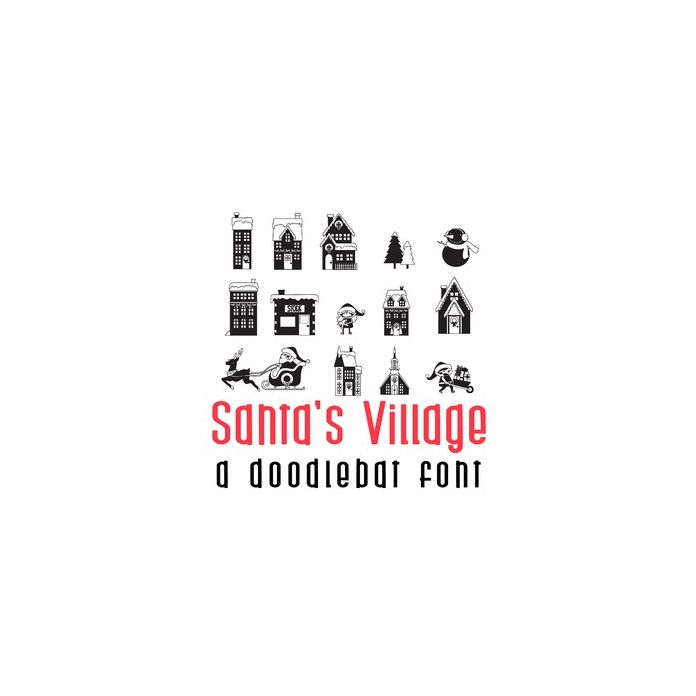
This fun doodlebat font features 26 adorable elves and Christmas Village. Perfect for cards, gifts, decor, crafts, scrapbook pages, planner stickers and more!